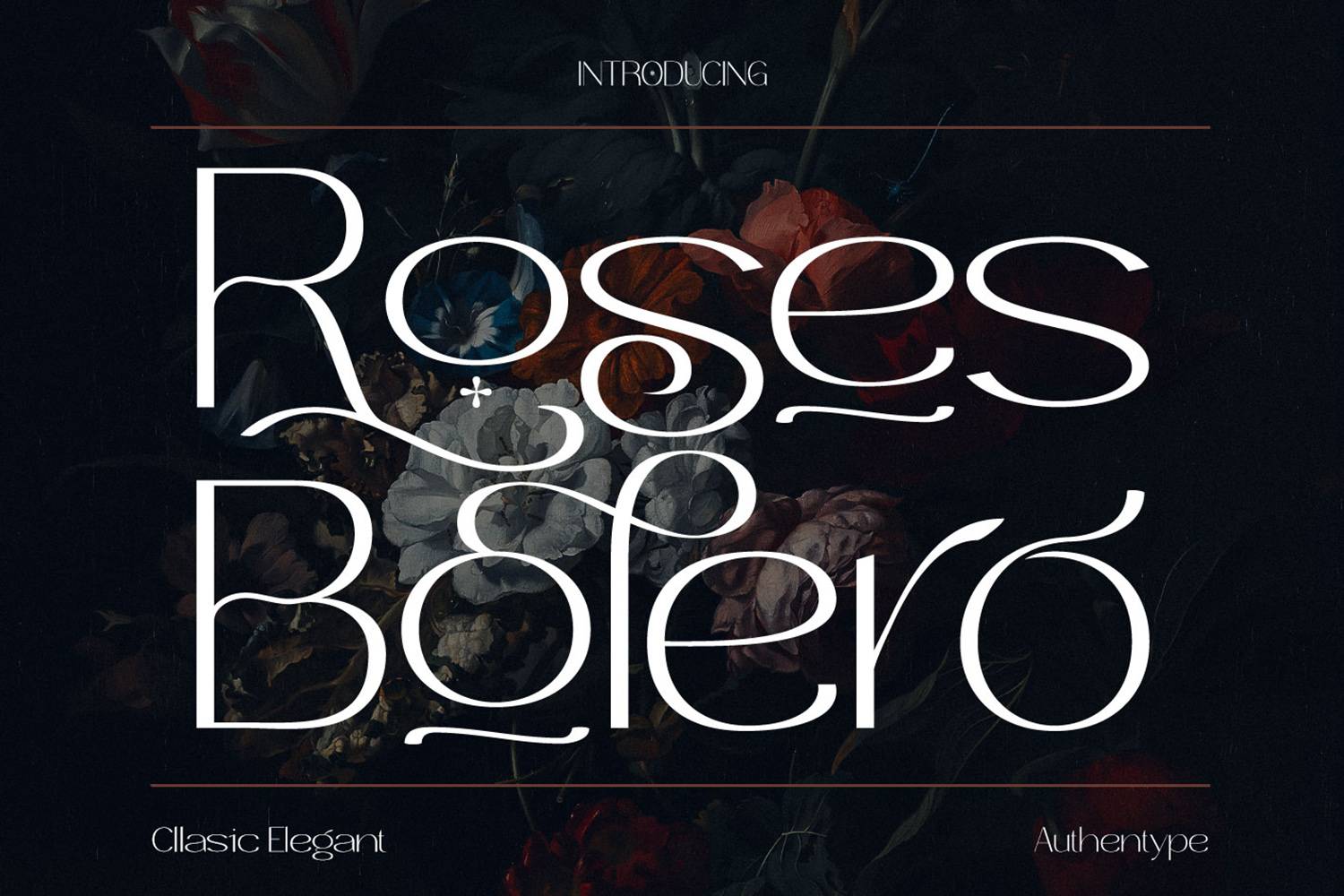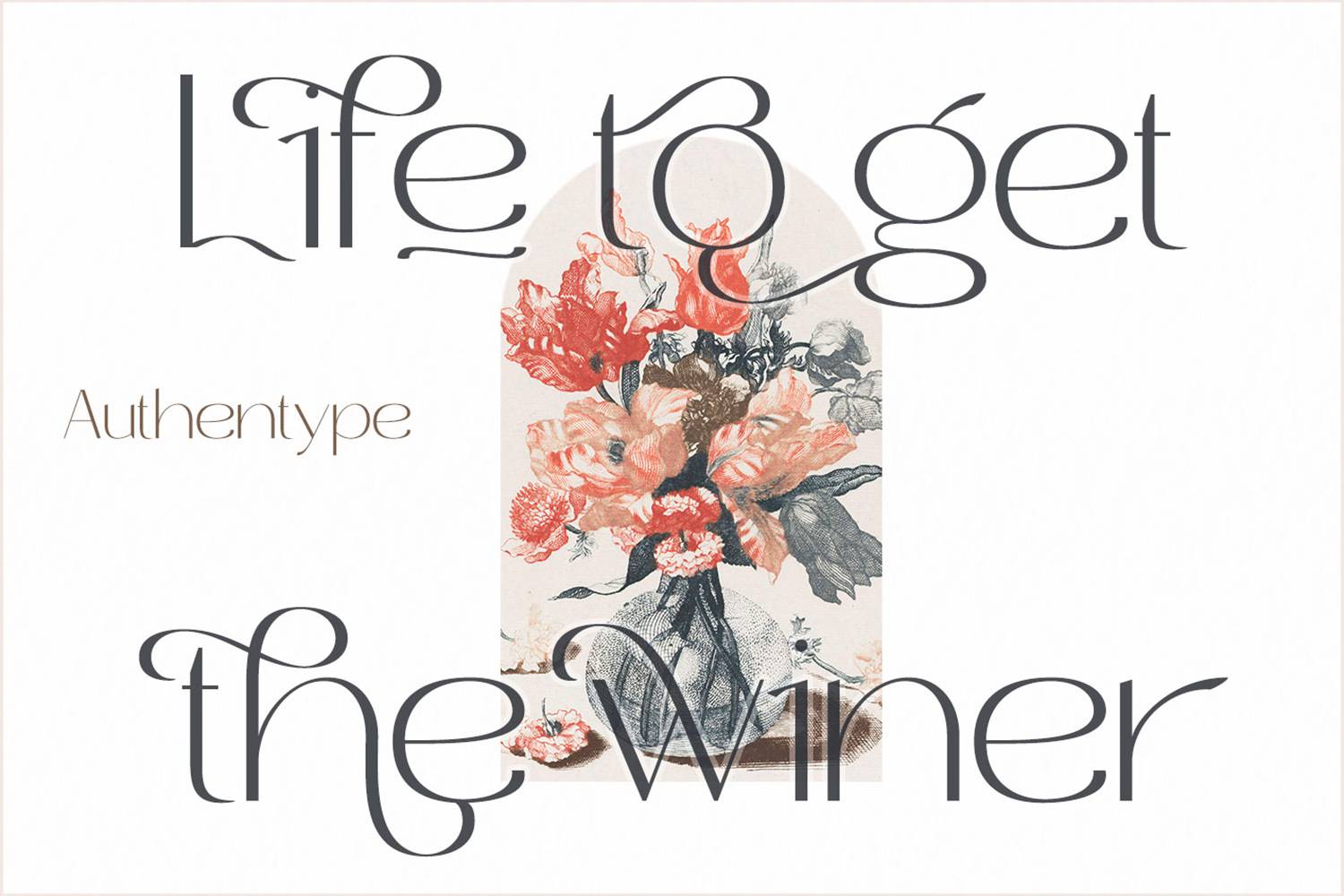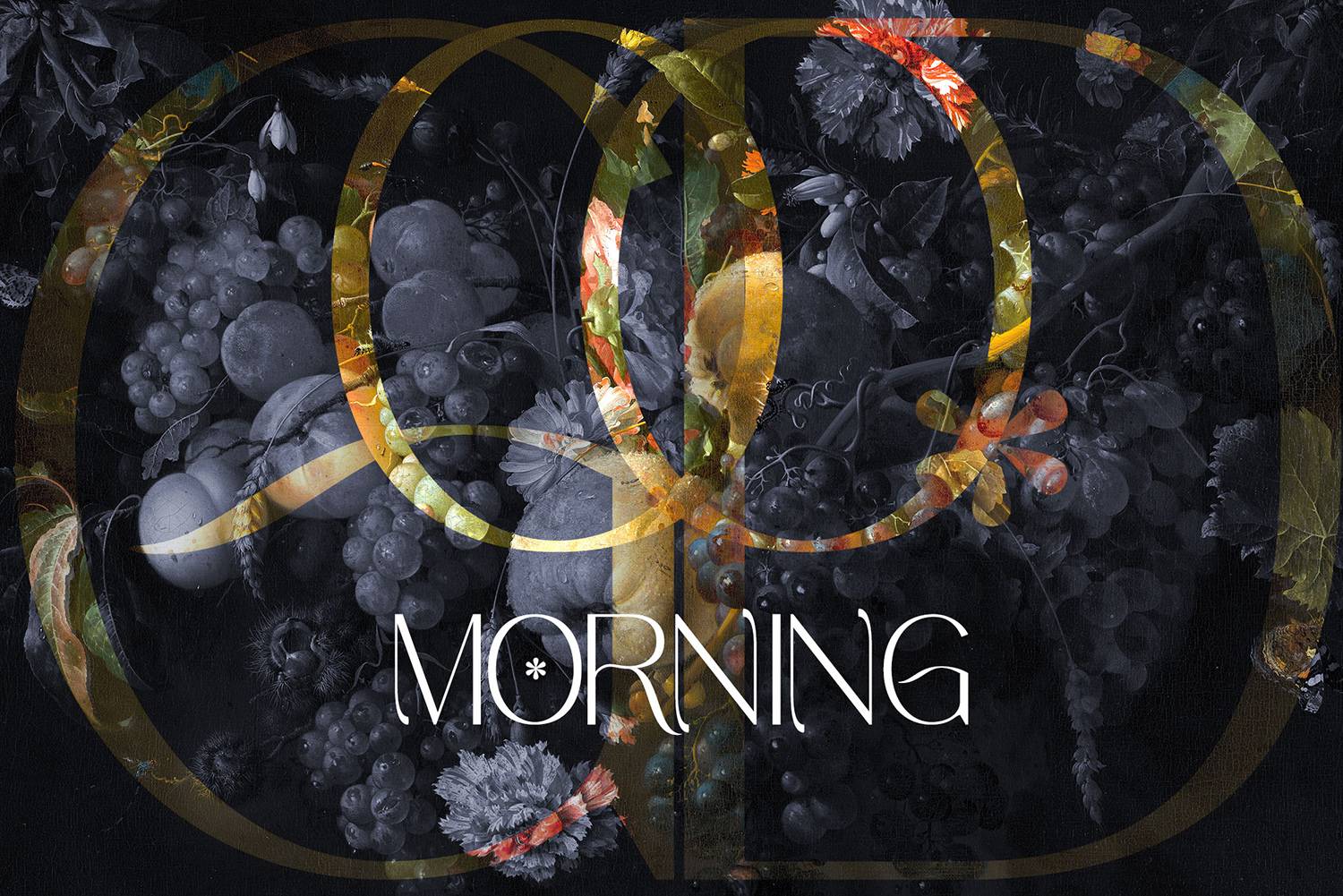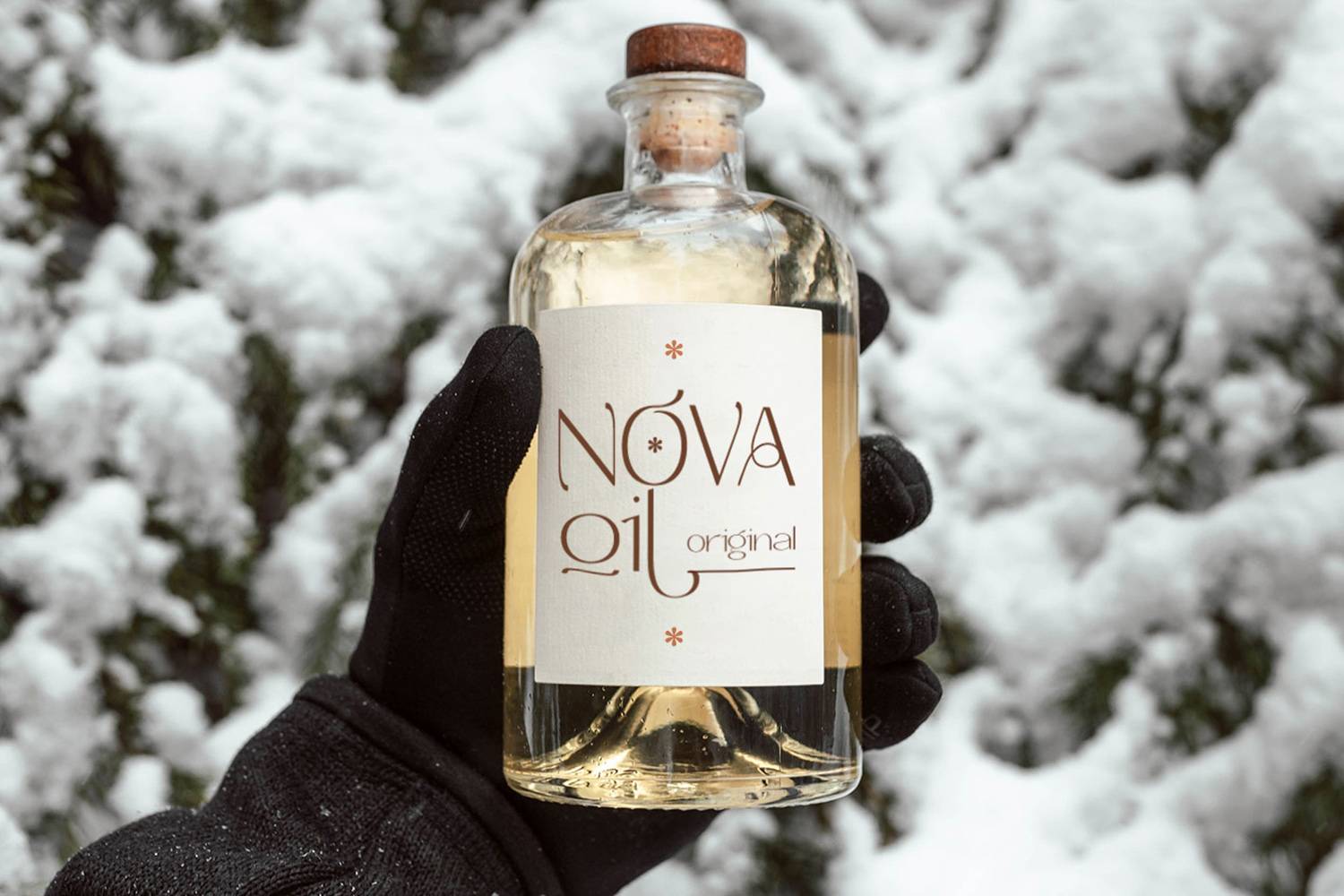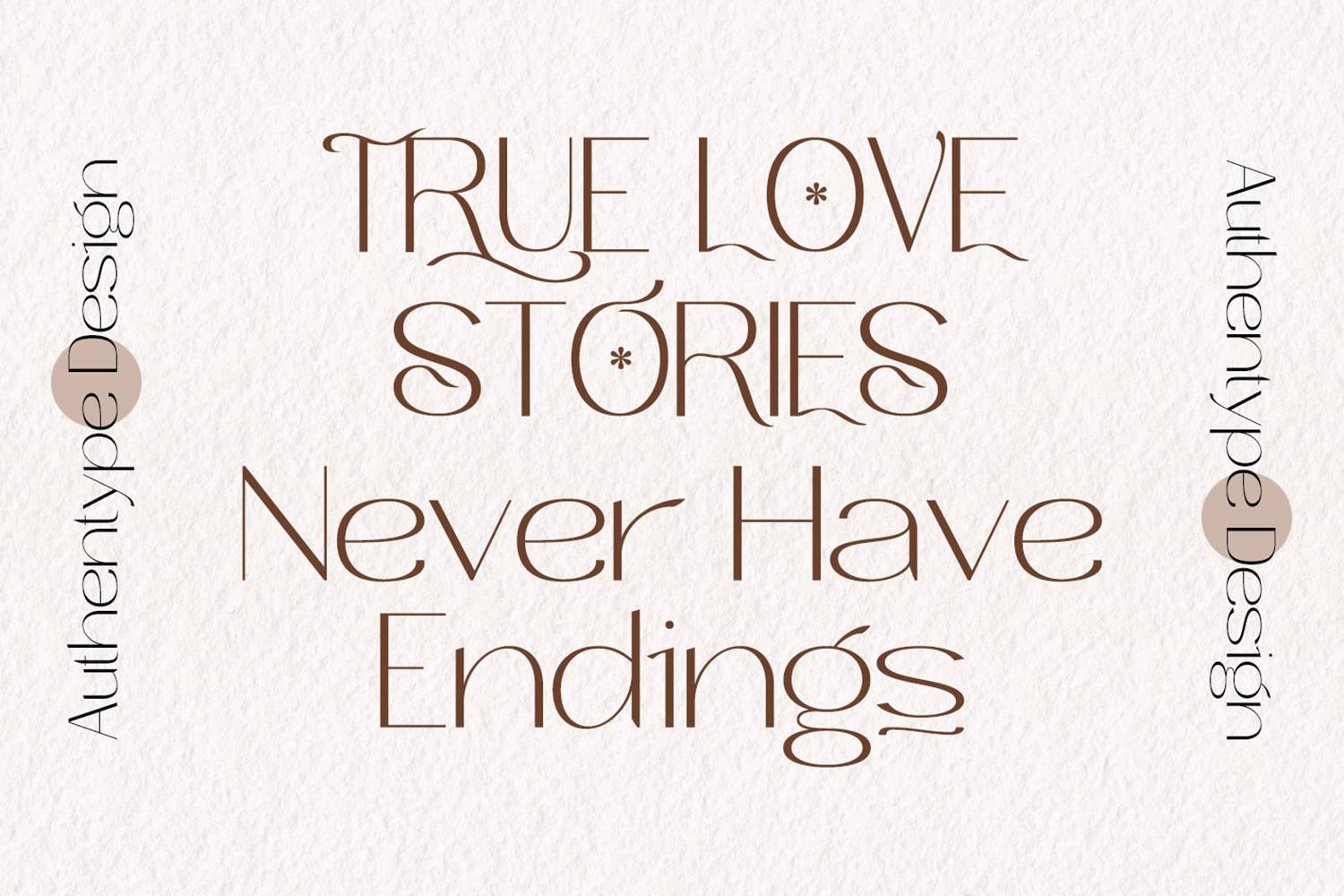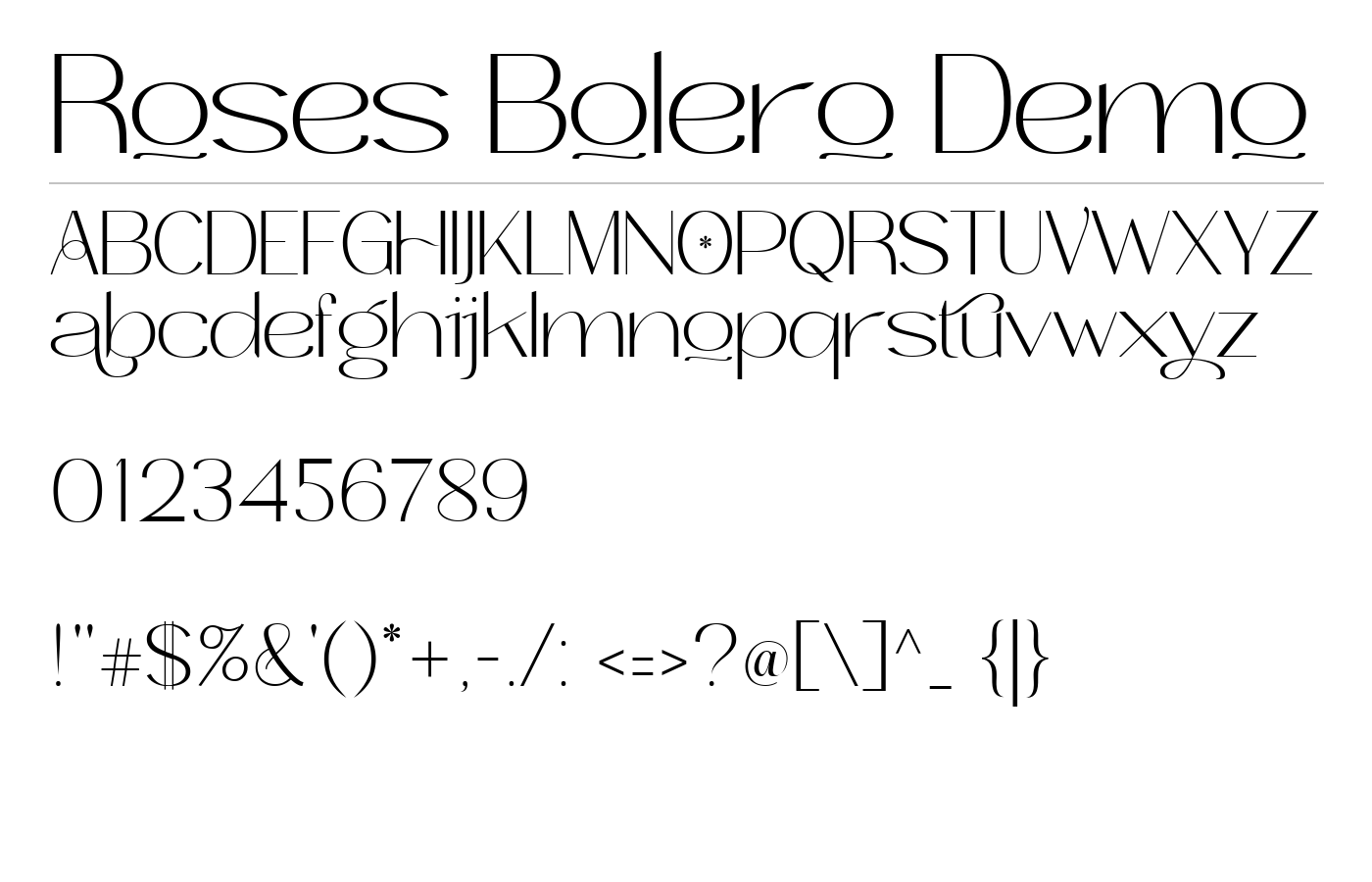
Roses Bolero is a delicate and elegant serif typeface characterized by its thin strokes and graceful, flowing curves, which give it a refined, high-contrast appearance. With its unique decorative details and slender letterforms, this font exudes a sophisticated and artistic vibe, making it ideal for luxury branding, fashion editorials, and stylish headlines that need a touch of flair and femininity. Its light weight and distinctive shape make it best suited for display use where elegance and visual impact are key.
Roses Bolero Font
About Roses Bolero Font
| Font family | Roses Bolero Font |
| Designer | Ekayasa |